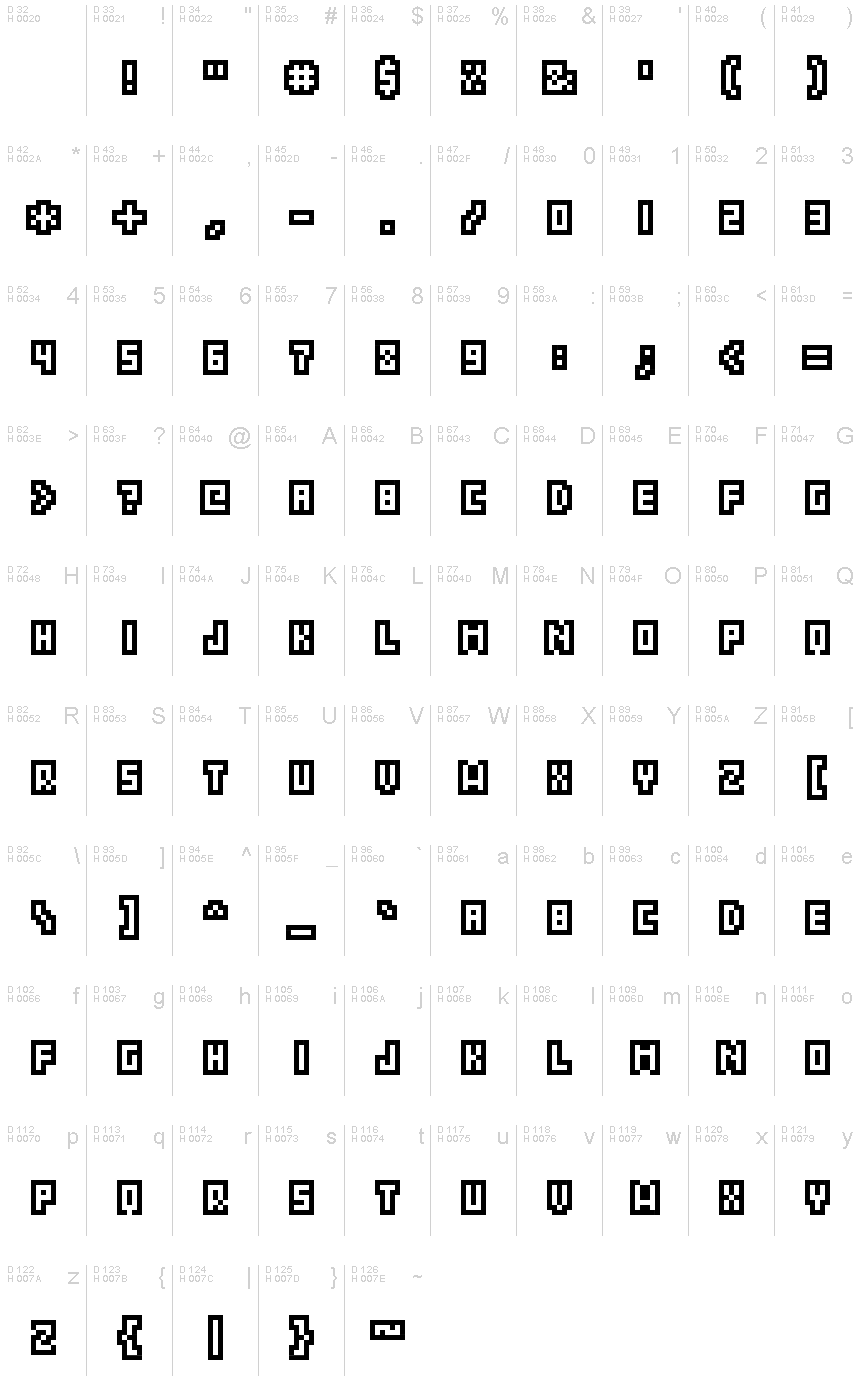
Grixel Acme 5 CompCapsO Xtnd
Grixel Acme 5 CompCaps is a pixelated, outlined font that exudes a distinct retro-futuristic charm. Designed by Nikos Giannakopoulos, this font's angular, geometric letterforms and striking visual contrast create a bold, eye-catching aesthetic.
The compactly compressed capital letters lend themselves well to various applications, from bold headlines and impactful logos to dynamic user interfaces and retro-inspired digital art. Grixel Acme 5 CompCaps offers a unique blend of technological precision and vintage flair, making it a versatile choice for designers seeking to add a touch of retro-futuristic allure to their creations.